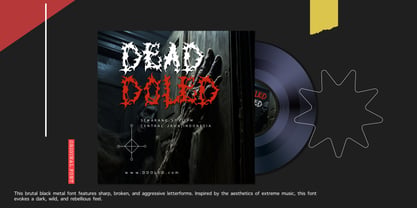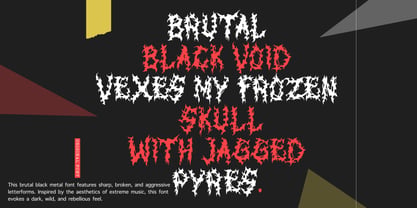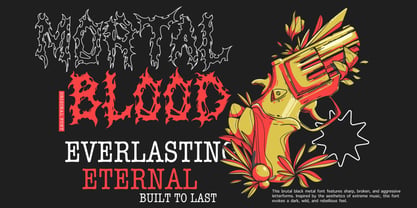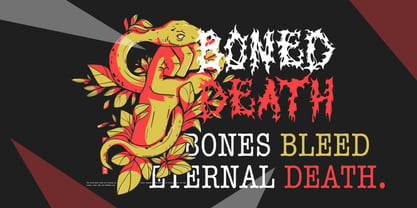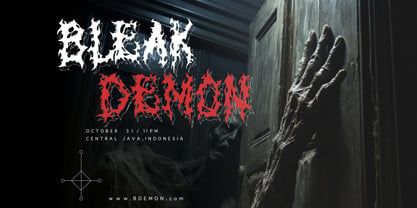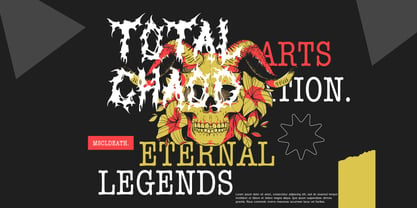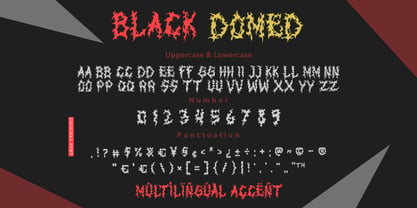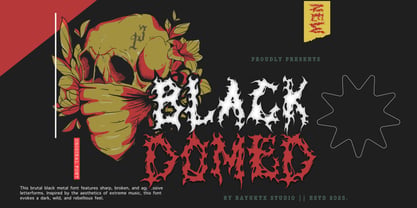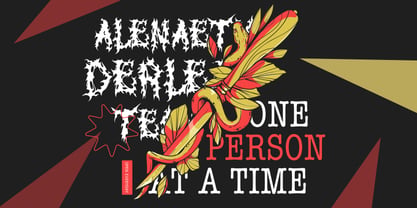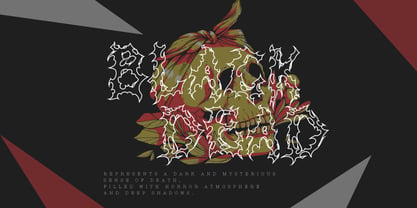
Black Domed
by Bayuktx
The Black Domed Font Family was designed by Bayu Aji Fais Mursid and published by Bayuktx. Black Domed contains 1 styles. More about this family
Black Domed – Brutal Black Metal Display Font Black Domed Brutal Black Metal Display Font is a fierce and aggressive typeface inspired by extreme metal aesthetics, underground band logos, and raw dark visuals. Featuring sharp, distorted, and melting letterforms, this font delivers a chaotic and rebellious energy that perfectly captures the spirit of black metal culture. Designed with brutal strokes, irregular shapes, and dramatic textures, Black Domed creates a powerful visual impact. Every character feels wild, unstable, and intense — making it ideal for horror, gothic, and extreme-themed designs. Whether for band logos, album covers, posters, or merchandise graphics, Black Domed brings a dark, violent, and uncompromising identity to your typography. Key Features : * Uppercase & Lowercase * Numerals & Punctuation * Multilingual Support * PUA Encoded & OpenType Features * Distorted & Brutal Letterforms * High Contrast Sharp Strokes Suitable For : * Black Metal & Death Metal Logos * Album Covers & Music Posters * Horror & Gothic Designs * Tattoo & Fashion Graphics * Dark Branding & Merchandise * Game Titles & Movie Posters * Experimental Typography Projects With Black Domed Brutal Black Metal Display Font, your designs gain extreme darkness, raw aggression, and underground metal identity — perfect for projects that demand chaos, brutality, and visual intensity.
Designers: Bayu Aji Fais Mursid
Foundry: Bayuktx